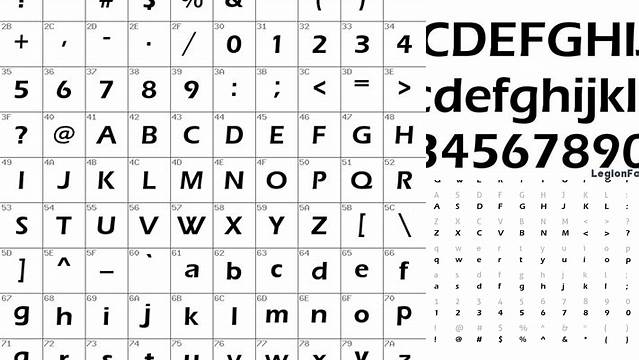
What Makes ITC Eras Std Demi Special?
Alright, guys, let's talk about why ITC Eras Std Demi is such a beloved font. First off, it's part of the larger ITC Eras family, which was designed by Albert Boton in 1988. The Demi weight, in particular, strikes a fantastic balance. It's bold enough to grab attention, but not so heavy that it becomes overwhelming. This makes it incredibly versatile, suitable for a wide range of applications, from headlines and subheadings to body text and even display graphics. The clean, geometric letterforms give it a modern feel, while the subtle curves and balanced proportions ensure readability. In a nutshell, it's a font that looks great and functions perfectly across different design needs. Because of this, the typeface is a popular choice for many designers, and is still widely used today.
One of the coolest things about ITC Eras Std Demi is its adaptability. Whether you're designing a website, creating marketing materials, or working on a print project, this font can shine. Its legibility is a huge plus, ensuring that your message gets across clearly. The font's unique character, along with its ability to work well with other fonts, makes it super-flexible and an excellent choice for any project. If you need an elegant and eye-catching typeface, ITC Eras Std Demi is definitely worth considering. So, if you're looking to add a touch of sophistication to your projects, look no further. With its clean lines, versatility, and excellent readability, it's a solid choice that will never go out of style. So there you have it - a font that's both stylish and functional. You can't go wrong with that!
Using ITC Eras Std Demi in Your Projects: Best Practices
Alright, you've got your font – awesome! Now, how do you use ITC Eras Std Demi effectively? Here are some tips and best practices to make your designs shine.
Headlines and Titles: This font is absolutely perfect for headlines and titles. Its bold weight makes it stand out, and its clean lines give it a modern look. Use it to grab your audience's attention immediately.
Subheadings: Pair ITC Eras Std Demi with a lighter font for your body text. This creates visual hierarchy and guides the reader's eye. It's a classic combination that always looks professional.
Body Text (Use with Caution): While ITC Eras Std Demi can be used for body text, especially in shorter blocks, consider using a slightly lighter weight or a different font altogether for longer paragraphs. Its boldness can sometimes tire the reader's eyes. Ensure good legibility!
Spacing and Kerning: Pay close attention to spacing and kerning, especially in headlines. Adjust the letter spacing to ensure that your words look balanced and easy to read. Proper spacing can make a huge difference in the overall look of your design.
Color Combinations: ITC Eras Std Demi works beautifully with a wide range of colors. Because of this, it gives you a lot of flexibility in your designs. However, ensure there's enough contrast between the font color and the background to ensure readability. High contrast is your friend!
Pairing with Other Fonts: When pairing ITC Eras Std Demi with other fonts, choose fonts that complement its clean and modern aesthetic. Sans-serif fonts often pair well, but you can also create contrast with a serif font for body text. This helps to create a balance between the title and body.
Testing and Experimentation: Don't be afraid to experiment. Play around with different weights, sizes, and styles to see what works best for your specific project. Test your design on different devices and platforms to ensure it looks great everywhere.